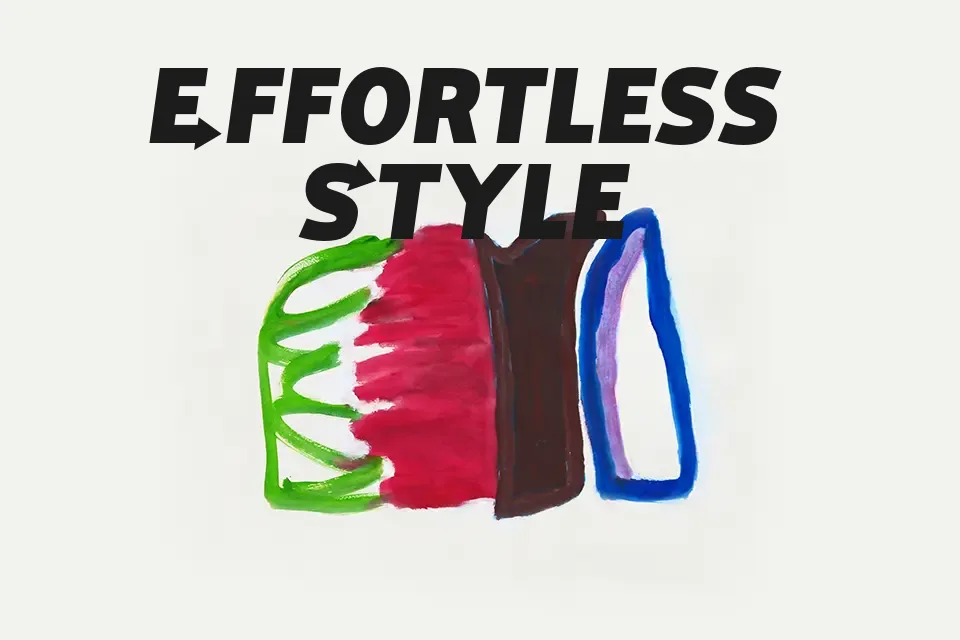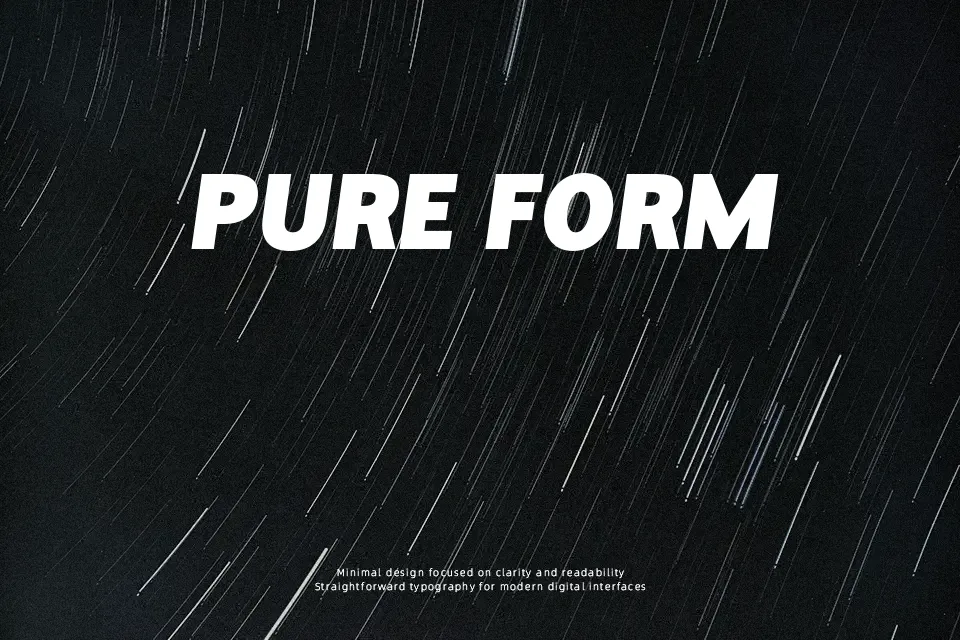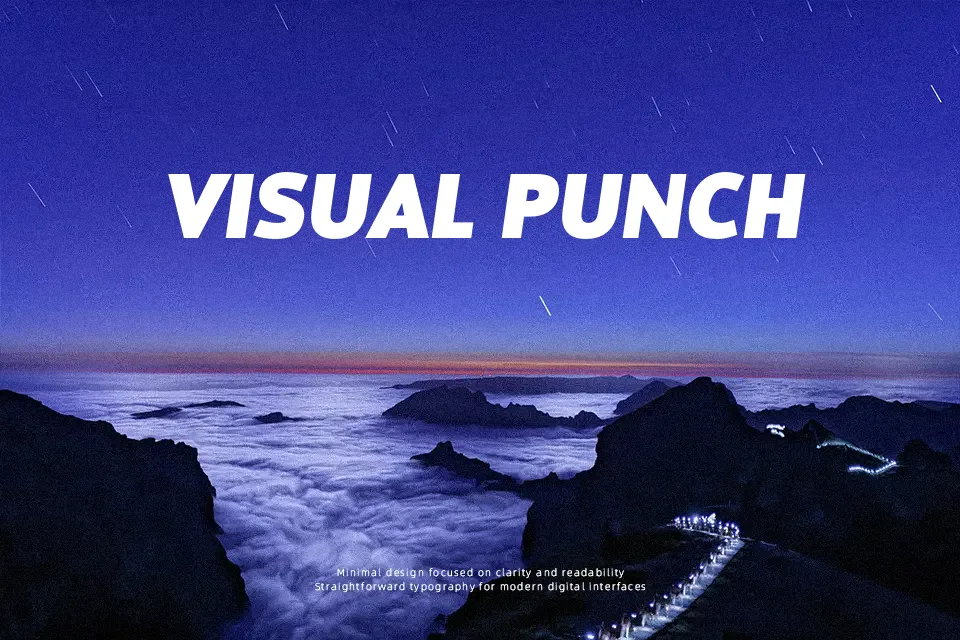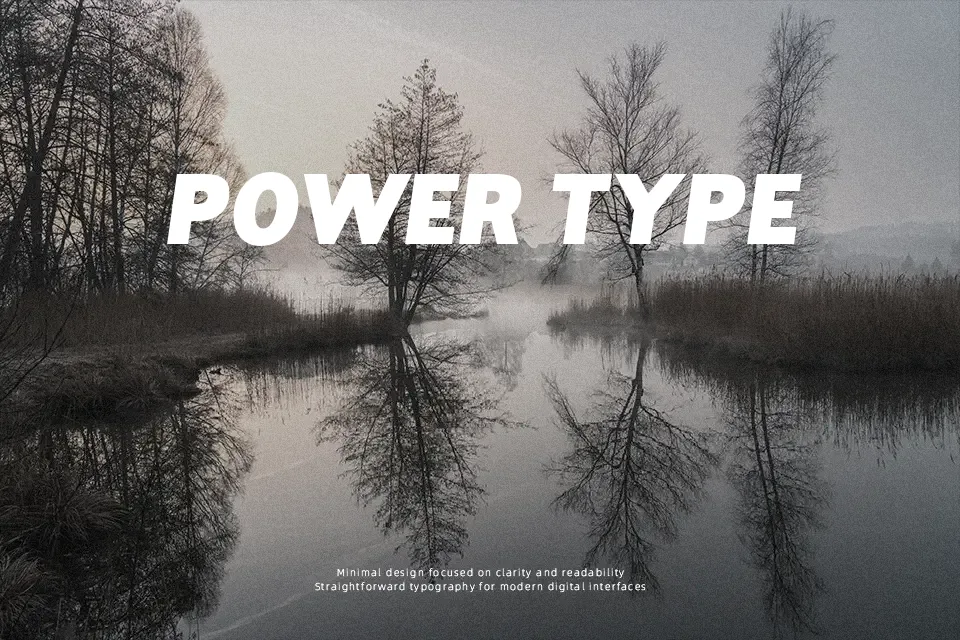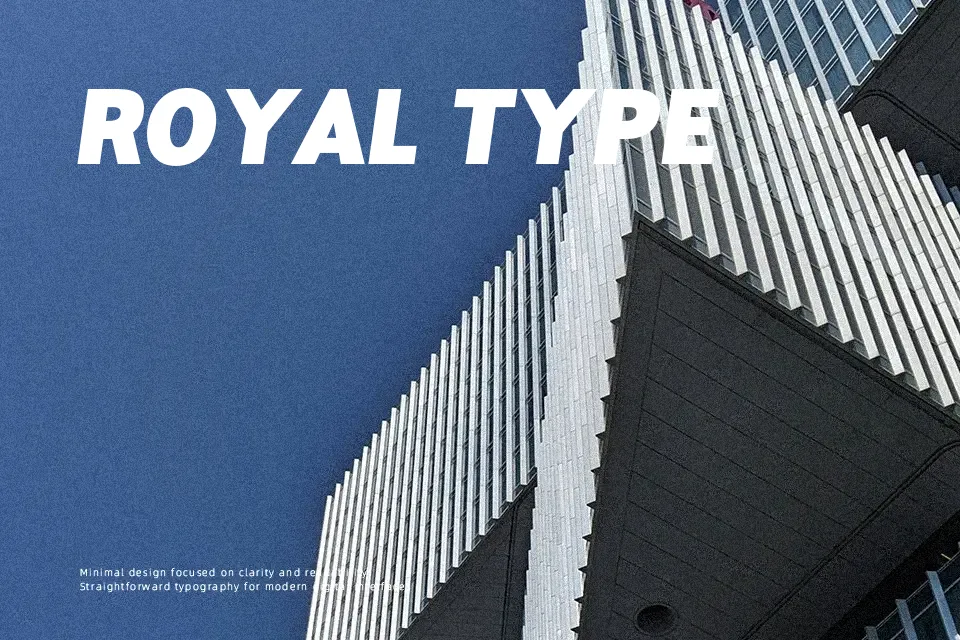
Sabwuy Font
Designed by Faqih Fawaji
Sabwuy Font delivers a bold and energetic presence with its thick, playful strokes and cheerful structural curves. The letterforms display generous proportions and well-balanced spacing, ensuring excellent readability in large headlines and vibrant branding layouts. Its friendly, cartoon-inspired appearance works exceptionally well for children’s books, toy packaging, and engaging video game interfaces. The heavy stroke style guarantees strong visual impact when used in short, punchy titles. However, the dense forms and highly decorative characteristics reduce continuous reading comfort, making it less suitable for long paragraphs or small body text. The tight spacing can also affect dense editorial layouts, but the typeface remains highly effective for striking, display-oriented typography.
children’s book covers, video game interfaces, animated cartoon titles, vibrant toy packaging
long paragraph text, corporate reports, small interface labels, dense editorial layouts